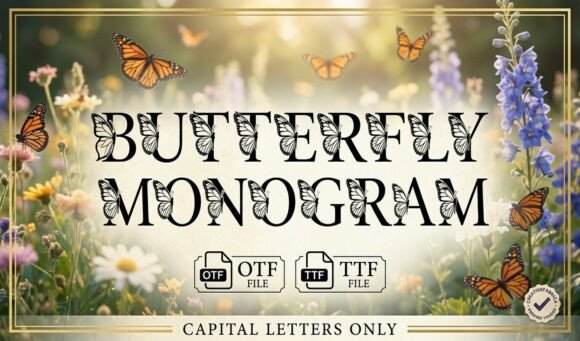
Bring a Touch of Enchanting Nature to Your Designs with the Butterfly Monogram Font
Are you a crafter, maker, or designer looking to add a touch of elegance and whimsy to your projects? Look no further than the Butterfly Monogram font. This beautifully delicate display font is perfect for creating stunning personalized items that will make your creations stand out. In this article, we’ll explore the features and benefits of the Butterfly Monogram font and how it can elevate your crafting and design projects.
What is the Butterfly Monogram Font?
The Butterfly Monogram font is a unique and exquisite display font that replaces the left side of classic, elegant serif letters with a highly detailed, gorgeous butterfly wing. This innovative design element adds a touch of enchanting nature to your designs, making it perfect for crafters, makers, and designers who want to create beautiful and eye-catching projects.
Features of the Butterfly Monogram Font
- Delicate and Elegant Design: The Butterfly Monogram font features a delicate and elegant design that is perfect for creating sophisticated and refined projects.
- Highly Detailed Butterfly Wing: The font’s unique design element, which replaces the left side of serif letters with a highly detailed butterfly wing, adds a touch of whimsy and wonder to your designs.
- Perfect for Personalized Items: The Butterfly Monogram font is ideal for creating personalized items such as monogrammed tote bags, custom t-shirts, personalized mugs, and tumblers.
Uses for the Butterfly Monogram Font
The Butterfly Monogram font is incredibly versatile and can be used for a wide range of projects, including:
- Monogrammed Tote Bags: Add a touch of elegance to your tote bags with a personalized monogram using the Butterfly Monogram font.
- Custom T-Shirts: Create stunning custom t-shirts with a personalized touch using the Butterfly Monogram font.
- Personalized Mugs and Tumblers: Add a touch of whimsy to your mugs and tumblers with a personalized monogram using the Butterfly Monogram font.
- Wedding Stationery: Use the Butterfly Monogram font to create beautiful and elegant wedding stationery, including invitations, save-the-dates, and thank-you cards.
- Feminine Branding: The Butterfly Monogram font is perfect for creating feminine and elegant branding, including logos, business cards, and packaging.
Tips for Using the Butterfly Monogram Font
Here are a few tips for getting the most out of the Butterfly Monogram font:
- Experiment with Different Colors: The Butterfly Monogram font looks stunning in a range of colors, from soft pastels to bold and bright hues.
- Pair with Other Fonts: The Butterfly Monogram font pairs beautifully with other fonts, including script fonts, serif fonts, and sans-serif fonts.
- Use for Large and Small Projects: The Butterfly Monogram font is perfect for both large and small projects, from giant banners to tiny jewelry.
The Butterfly Monogram font is a beautiful and versatile font that is perfect for crafters, makers, and designers looking to add a touch of elegance and whimsy to their projects. With its delicate and elegant design, highly detailed butterfly wing, and compatibility with popular design software, this font is sure to become a favorite in your design collection. So why wait? Download the Butterfly Monogram font today and start creating stunning personalized items that will make your creations flutter to life!